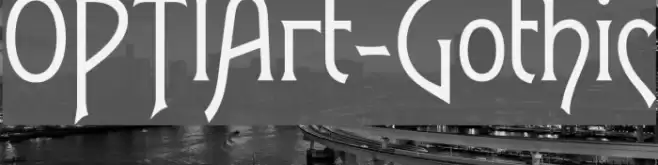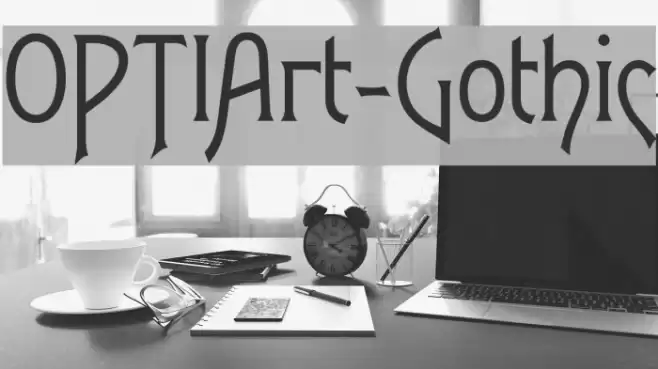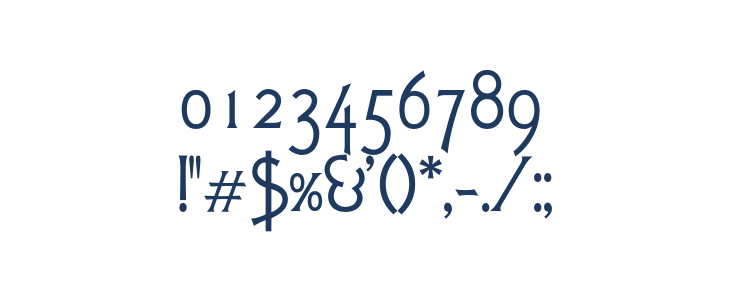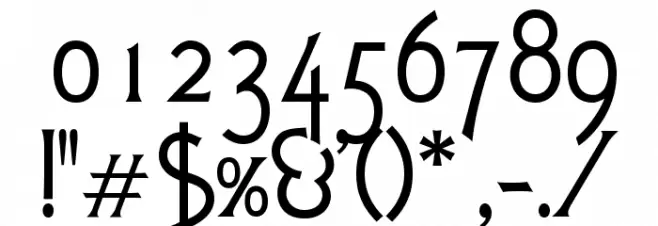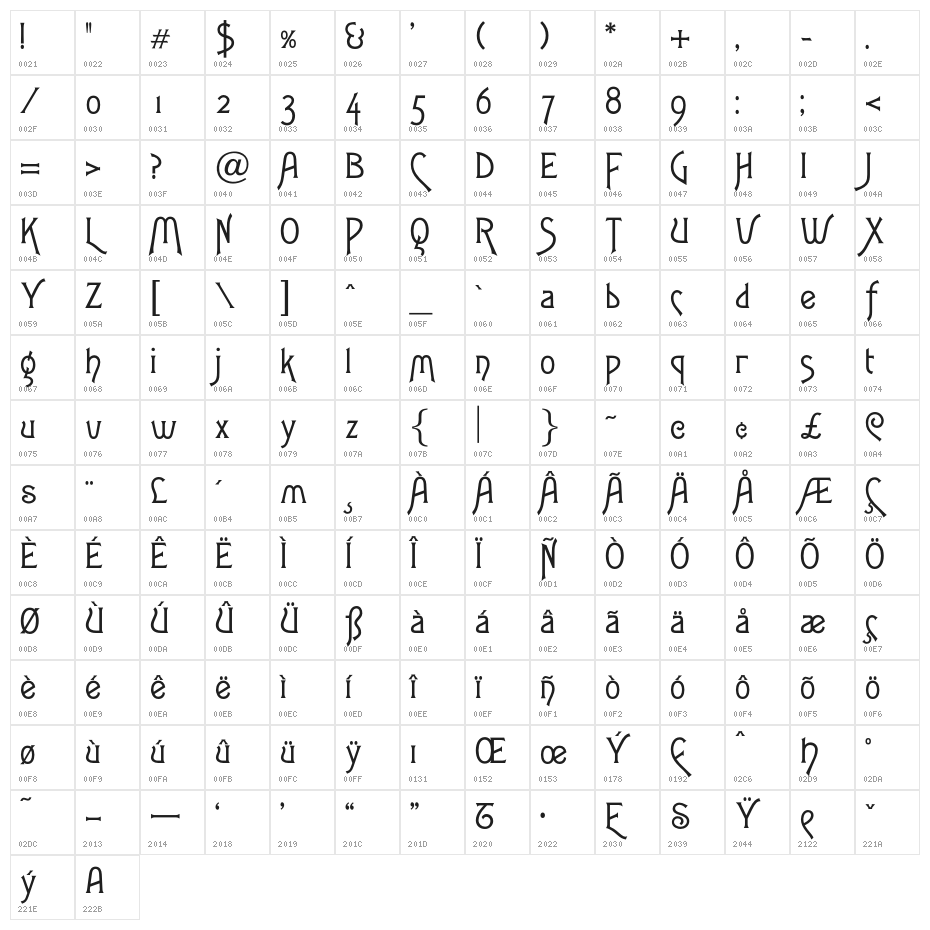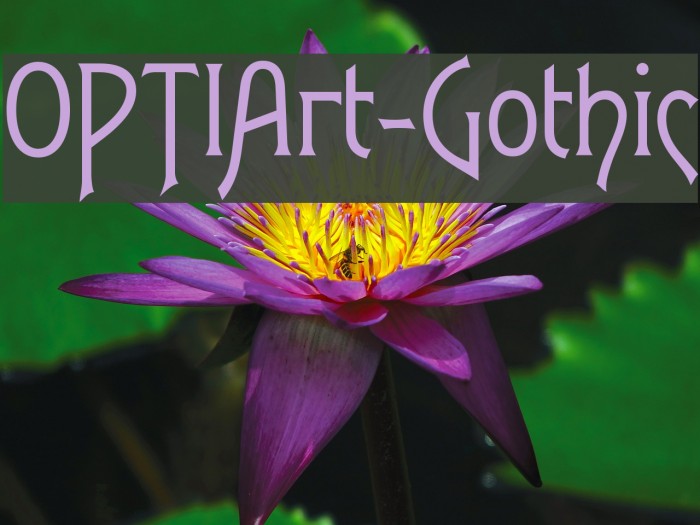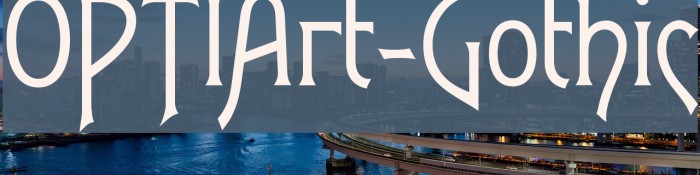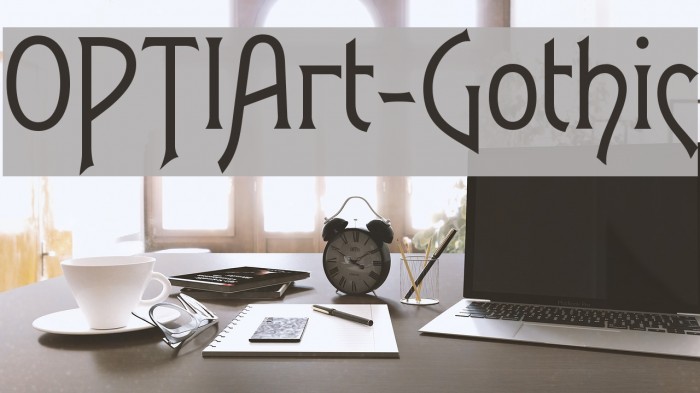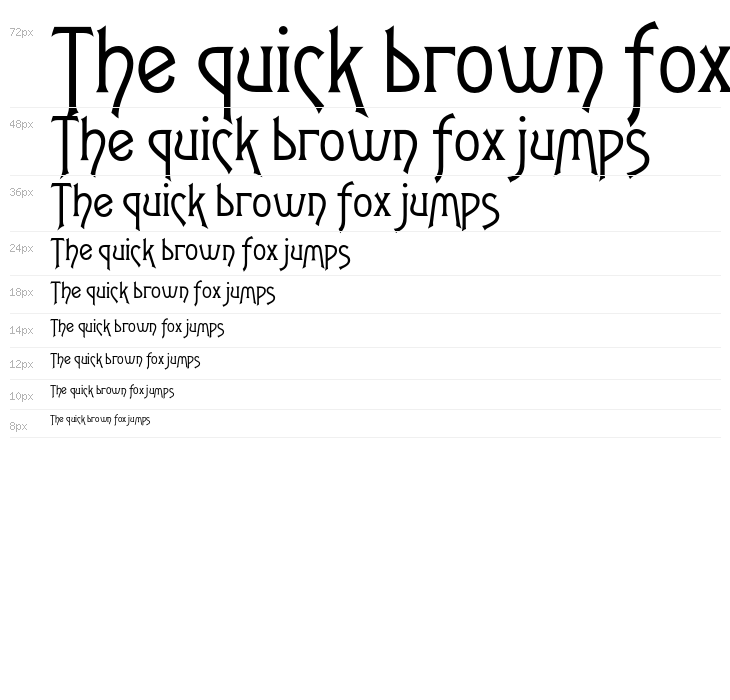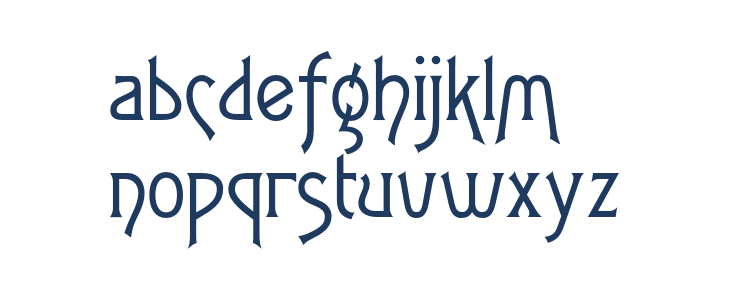
OPTIArt-Gothic Font
OPTIArt-Gothic Description
This font features a unique and artistic design with a gothic influence. The uppercase letters are characterized by sharp, angular lines and elongated forms, giving them a dramatic and bold appearance. The lowercase letters maintain a similar style but with slightly softer curves, providing a harmonious balance. The numerals are distinct and easily readable, with a consistent style that matches the alphabet. Special characters are creatively designed, adding to the font's overall aesthetic appeal. This font's intricate details and striking appearance make it suitable for projects that require a touch of elegance and sophistication.
A gothic-inspired font with sharp, angular lines and artistic flair from Uncategorized fonts.
- Proposed Projects: Ideal for use in branding, posters, book covers, and any design project that seeks to convey a sense of drama and elegance.
- Overall Style: Gothic, Artistic